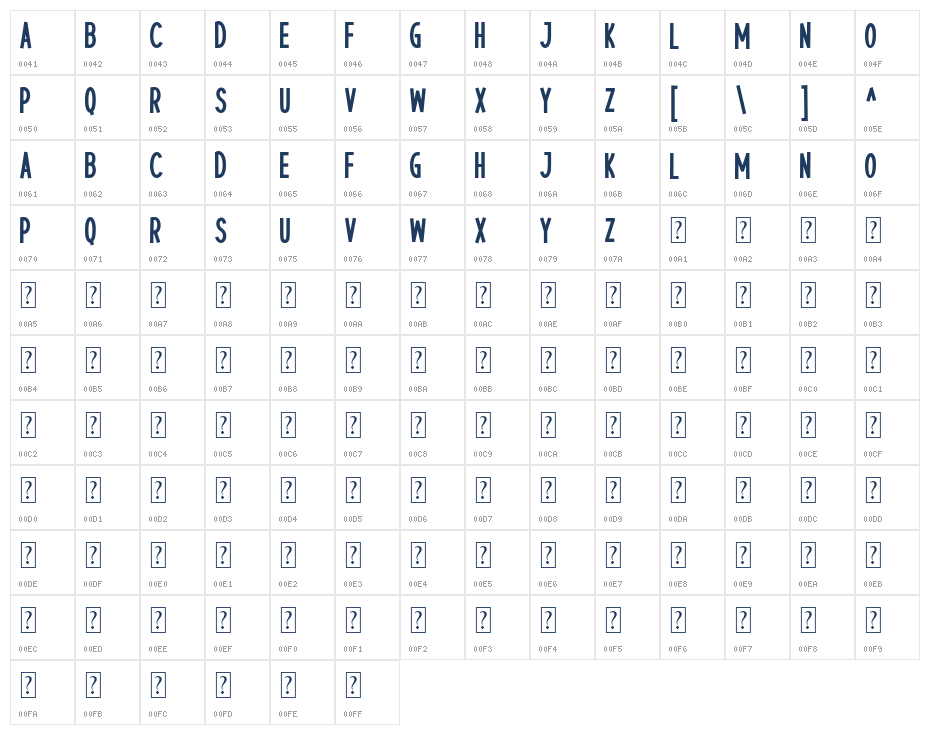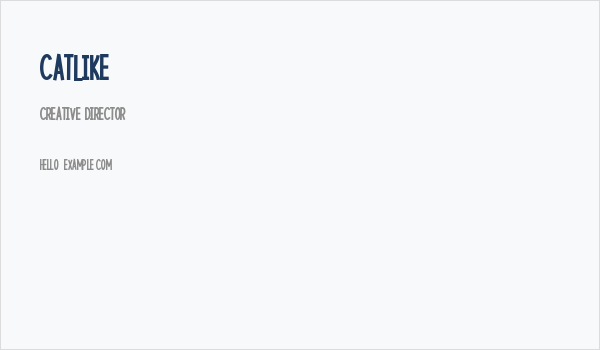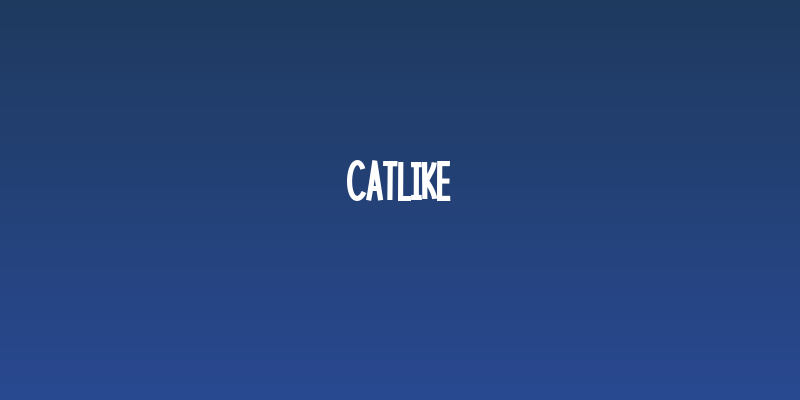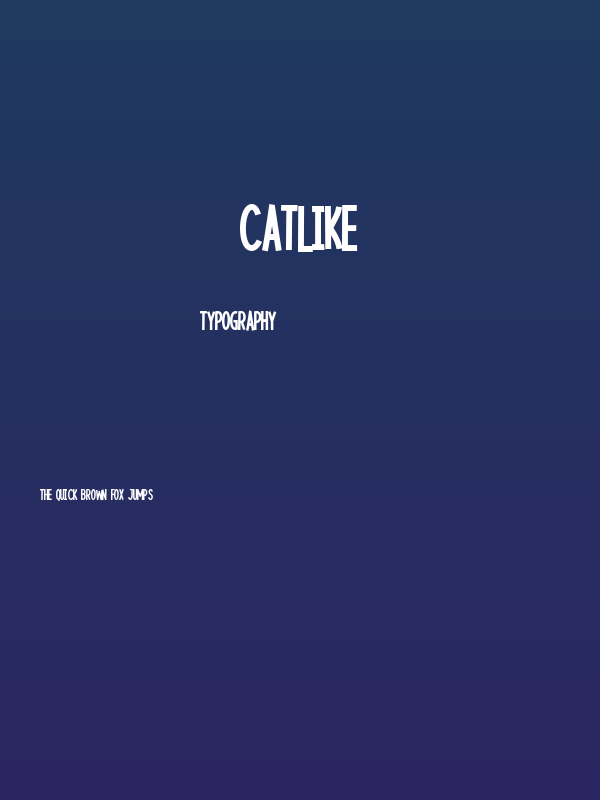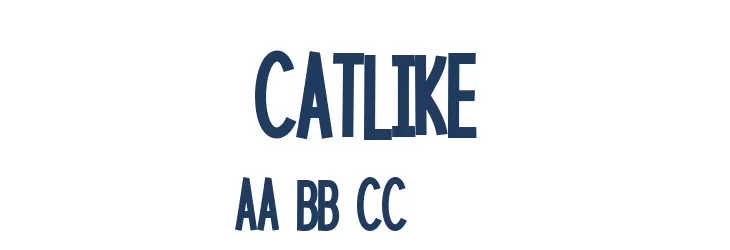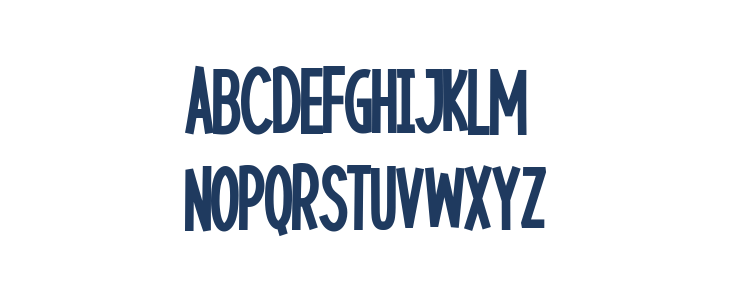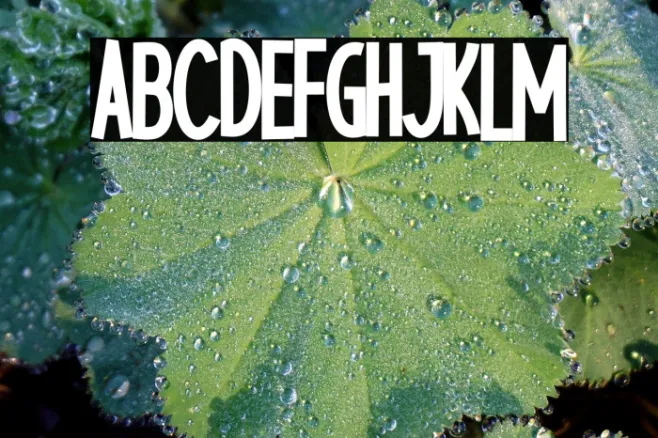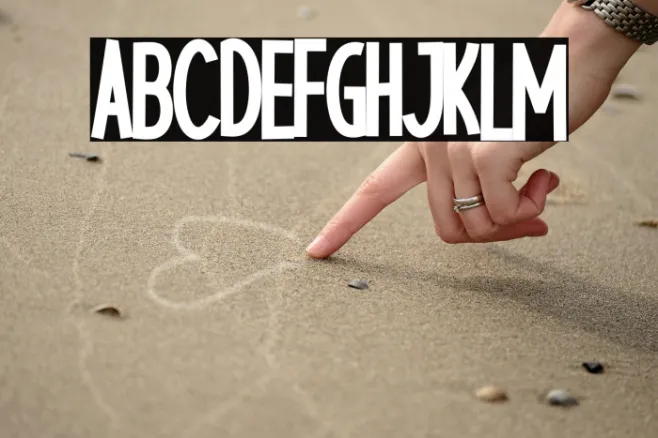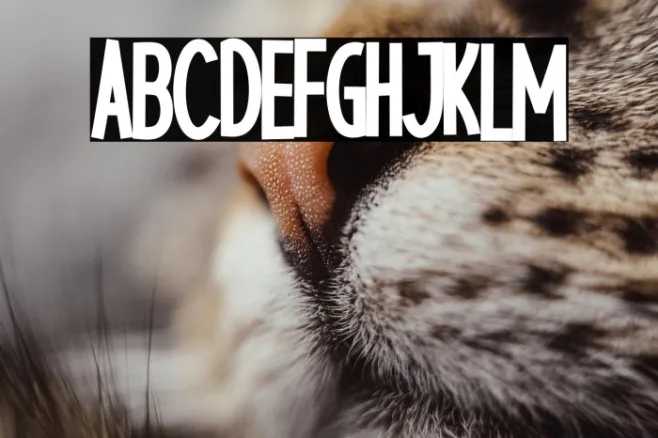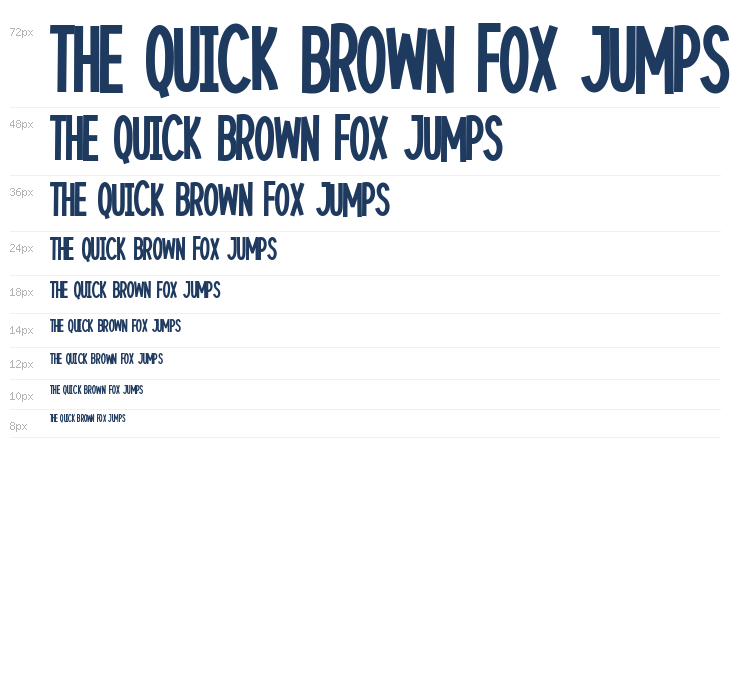
Catlike Font
Catlike Description
Bold, playful, and slightly irregular uppercase font with a hand-drawn style.
| Overall Style | Playful, Hand-drawn, Casual |
| Use Case | Headlines, Posters, Children's books, Branding |